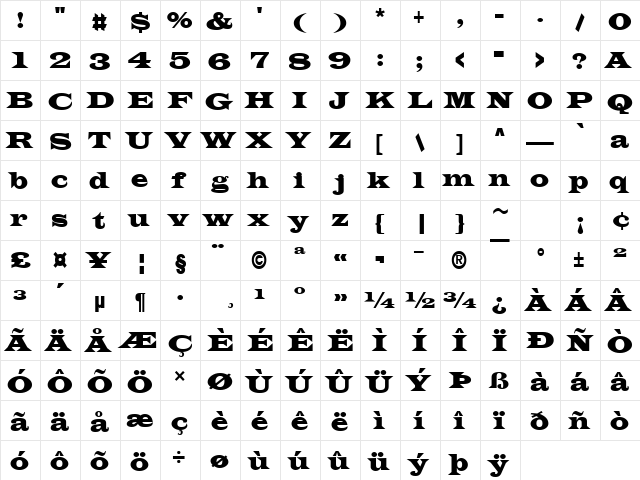
Latin-Extended Normal
Design Context for Latin-Extended Typeface
Latin-Extended takes a measured approach to typography — its balanced proportions and neutral character make it a reliable workhorse for both digital and print work.
Pro Tip: Use Latin-Extended in both headline and body roles to test its range before committing to a single application.